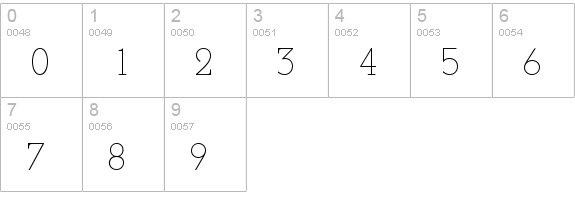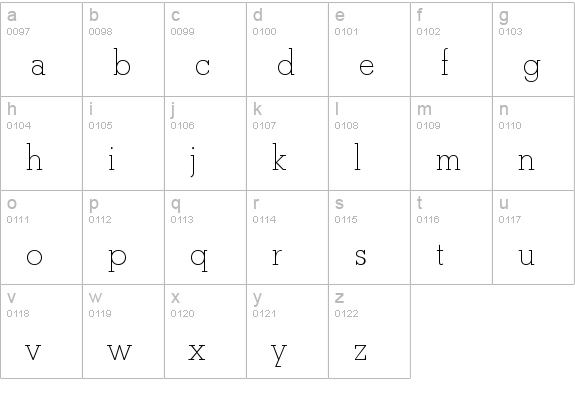
BetonEF-Light is a refined, elegant variant in the BetonEF typeface family \xE2\x80\x94 well suited to elegant body text, refined sub-headings, and luxury branding.
BetonEF-Light font is a sleek and modern typeface that exudes elegance and sophistication. With its clean lines and versatile design, this font is perfect for a wide range of projects, from branding to editorial design. The light weight of the font adds a touch of delicacy and refinement, making it ideal for creating a polished and professional look. What's even better is that BetonEF-Light font is completely free to download at FontsMarket.com. This means you can easily access this high-quality font without any cost, making it a valuable addition to your font collection. Don't miss out on the opportunity to enhance your designs with the timeless beauty of BetonEF-Light font, available for free download now!